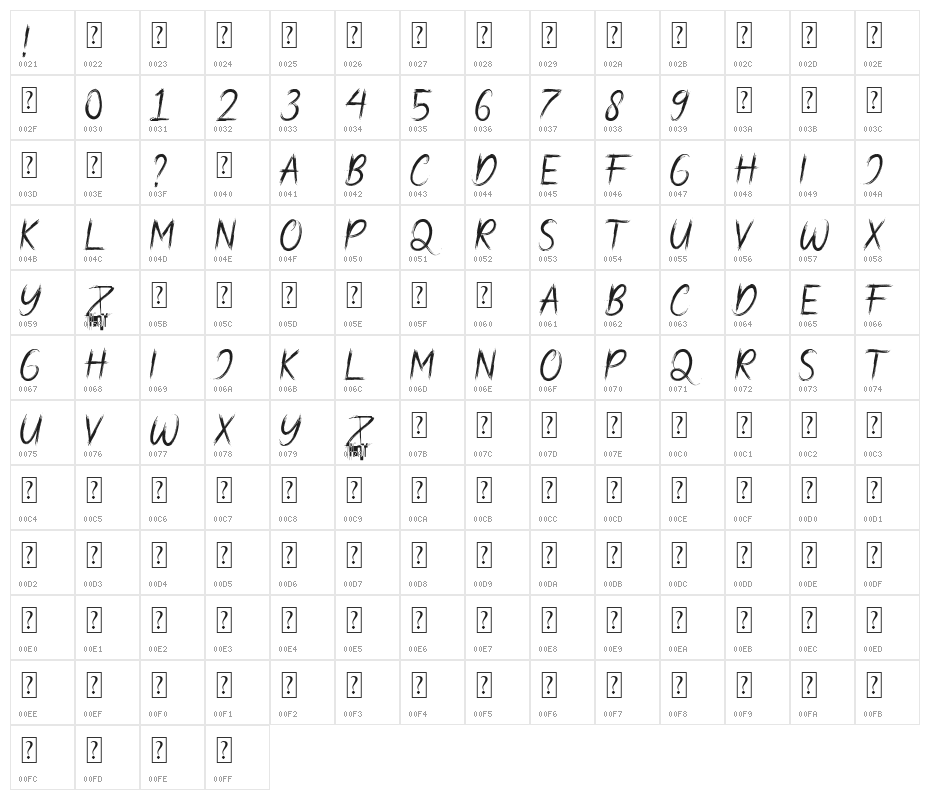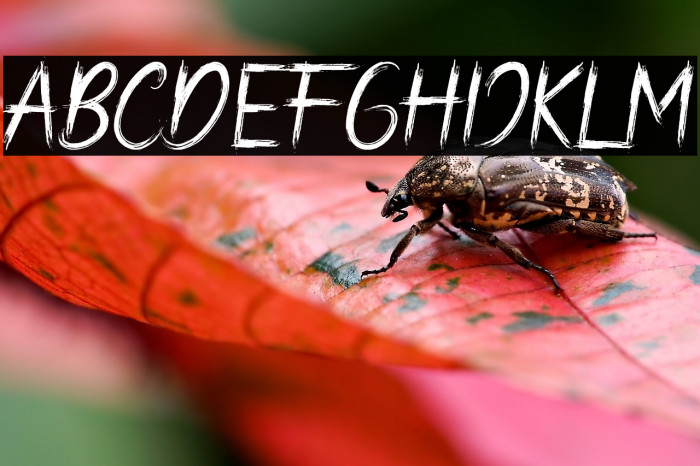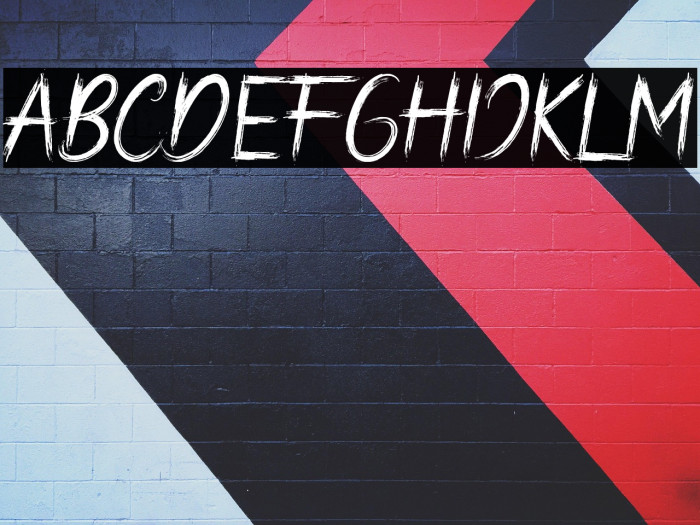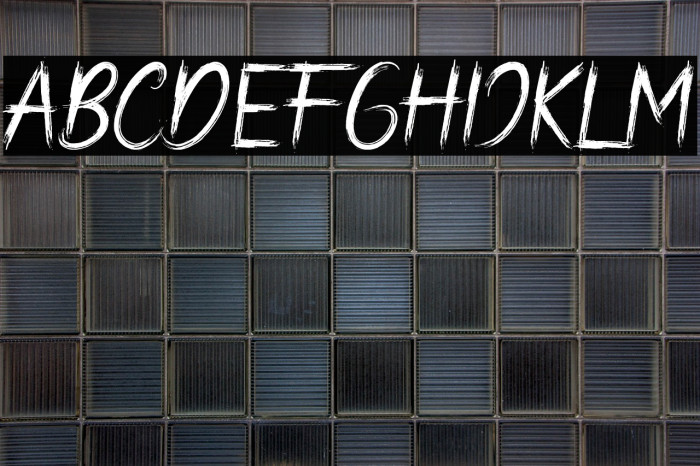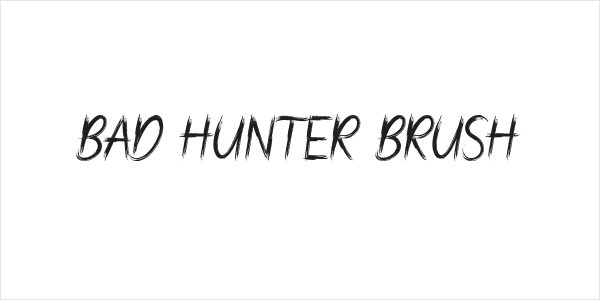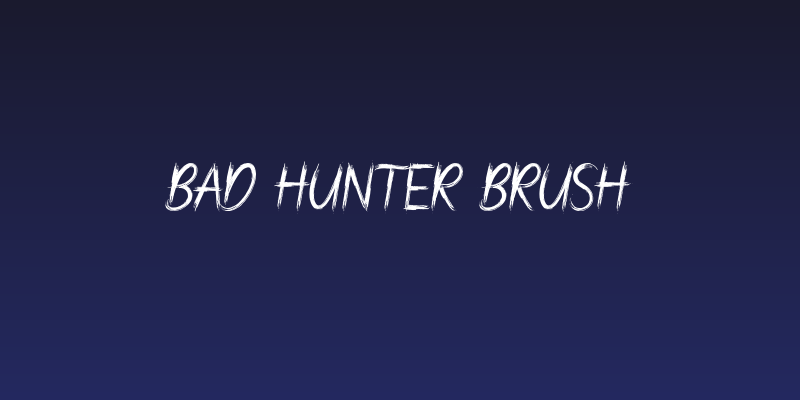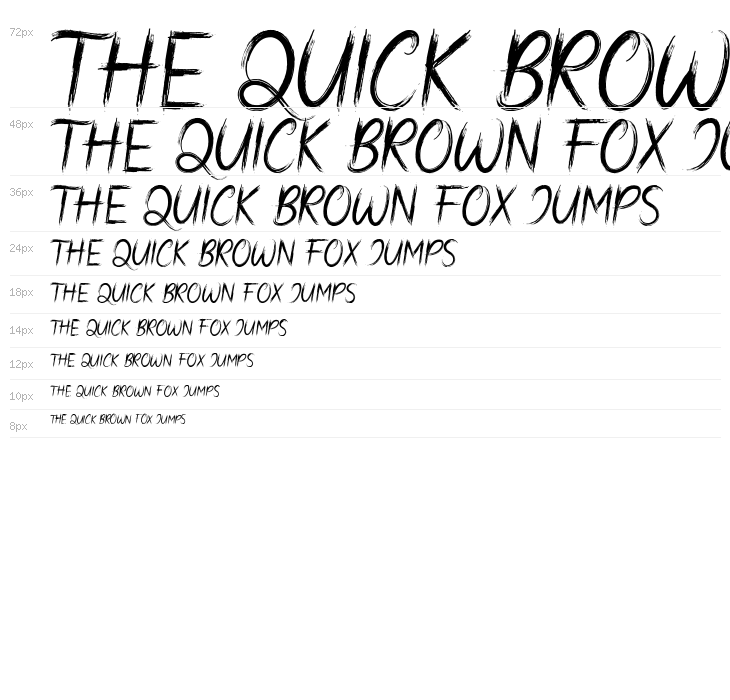
Bad Hunter Brush Font
Bad Hunter Brush Description
This font features a dynamic and energetic brush style, characterized by its bold, sweeping strokes and rough edges. The letters have a hand-painted appearance, giving them a raw and expressive feel. The uppercase and lowercase letters maintain a consistent style, with each character exhibiting unique brush textures that add to the overall artistic vibe. The numbers and special characters follow the same design principles, ensuring a cohesive look across all glyphs. This font's distinctive brushwork makes it stand out, perfect for projects that require a touch of creativity and flair.
| Proposed Projects | Ideal for branding, posters, album covers, and any creative project needing an artistic touch. |